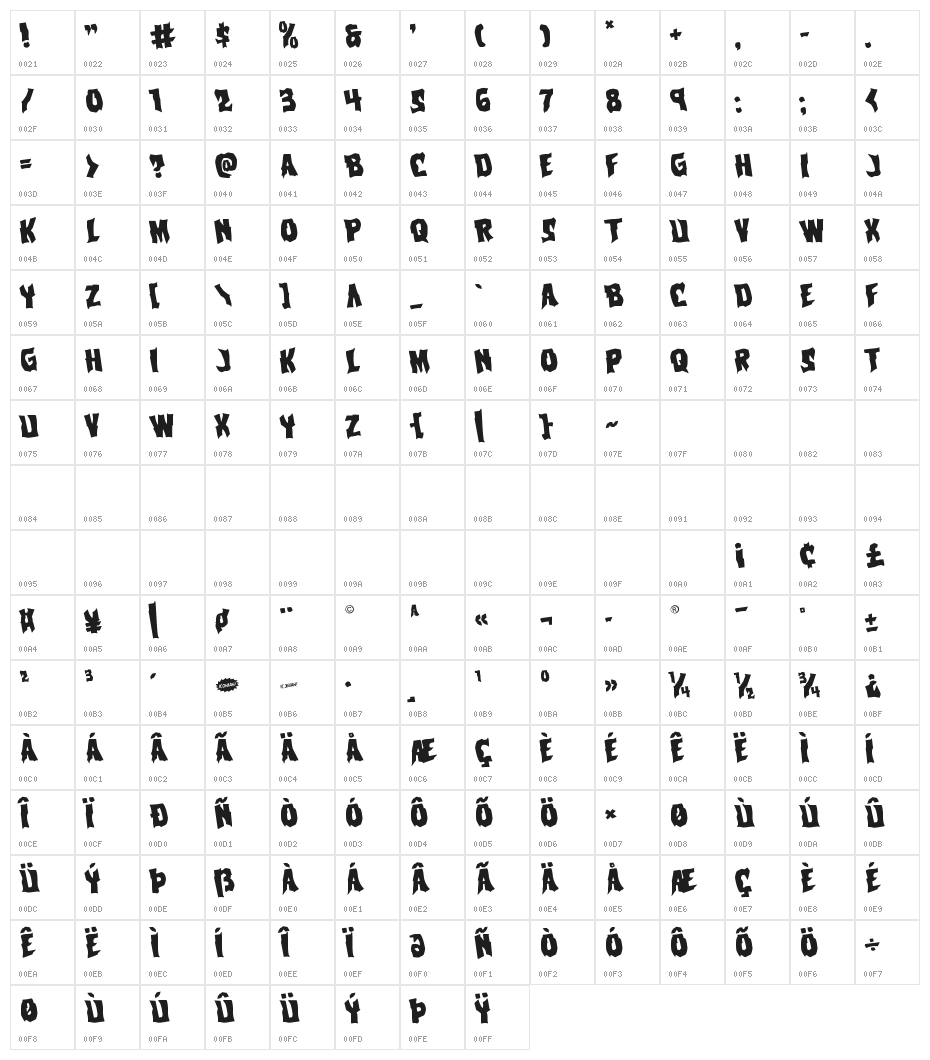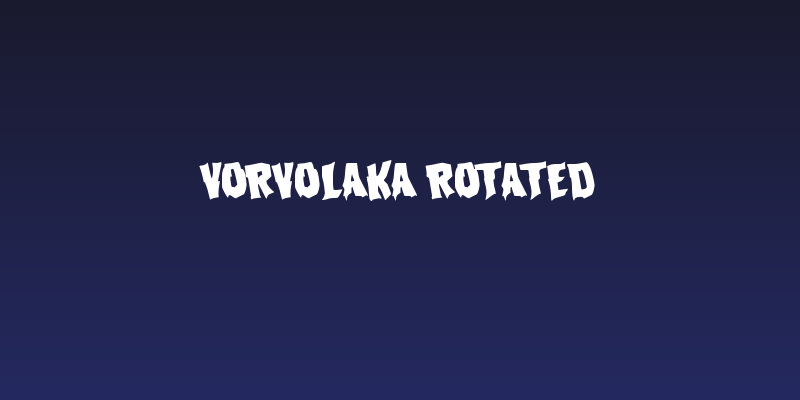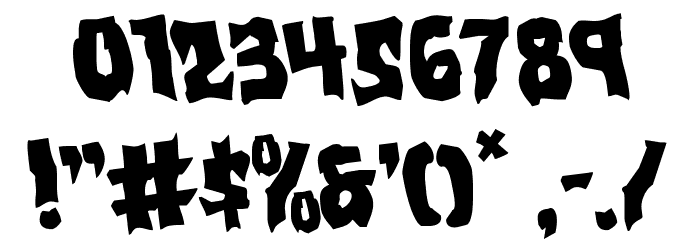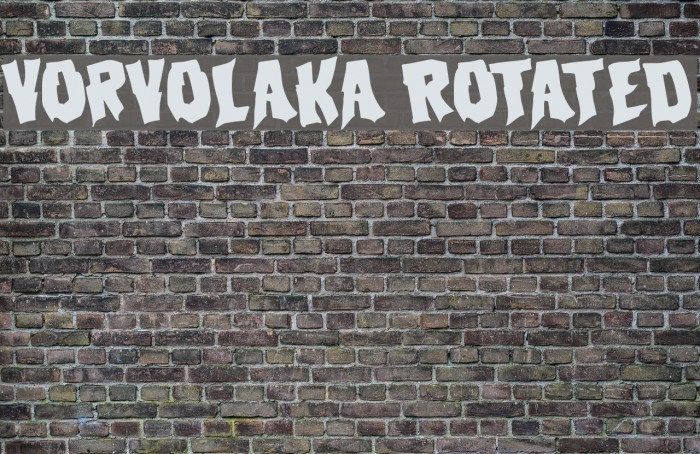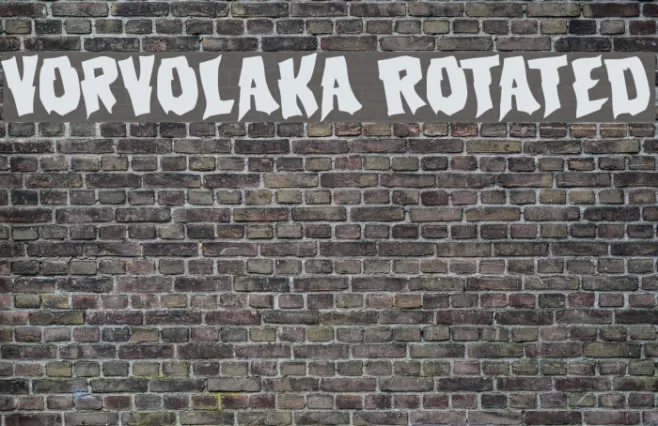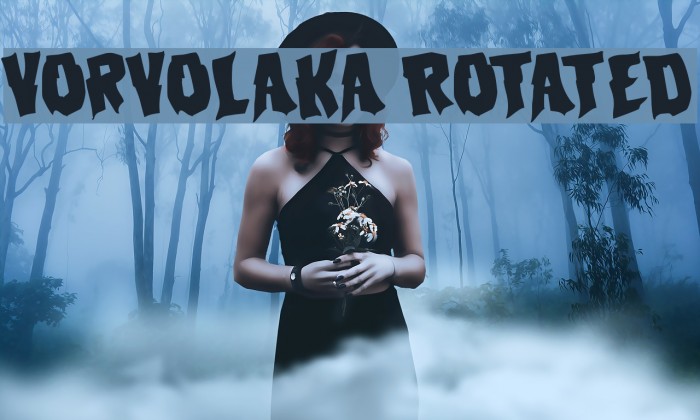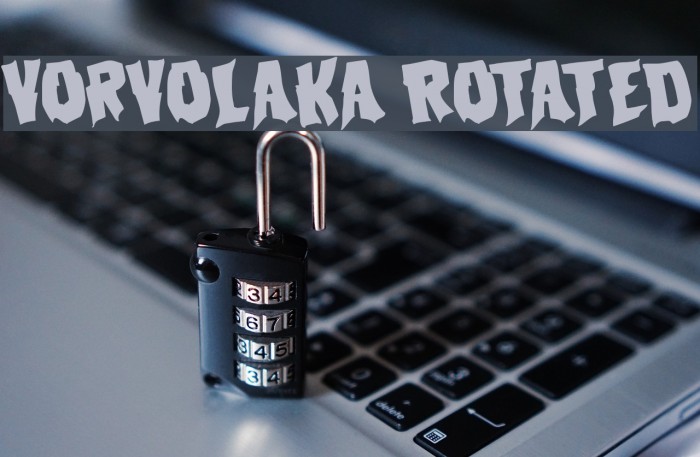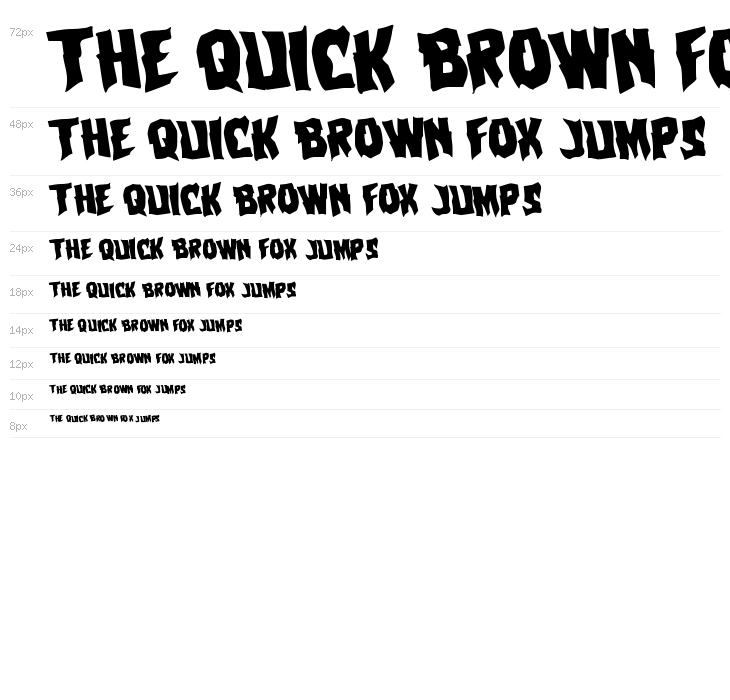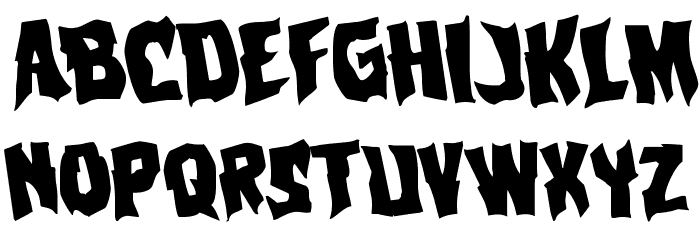
Vorvolaka Rotated Font
Vorvolaka Rotated Description
This font exhibits a bold and dynamic style, characterized by its sharp, angular edges and irregular shapes. The letters are heavily stylized, giving them a jagged and edgy appearance that suggests movement and energy. The uppercase and lowercase letters maintain a consistent design, with thick strokes and uneven lines that create a sense of ruggedness. Numbers and special characters follow the same aesthetic, ensuring a cohesive look across all glyphs. This font's unique design makes it stand out, ideal for projects that require a strong visual impact.
| Proposed Projects | Perfect for horror-themed designs, edgy posters, album covers, or any project needing a bold, impactful look. |